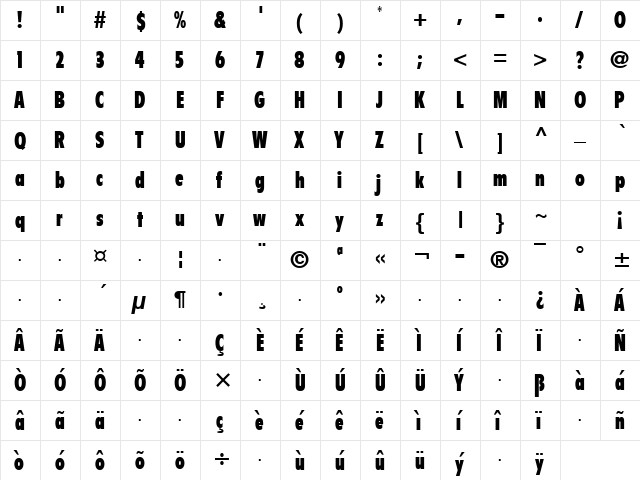
Policy Regular Font Preview
Policy Regular
Design Context for Policy Typeface
Policy is a composed and adaptable typeface that performs quietly and consistently across a wide range of design contexts.